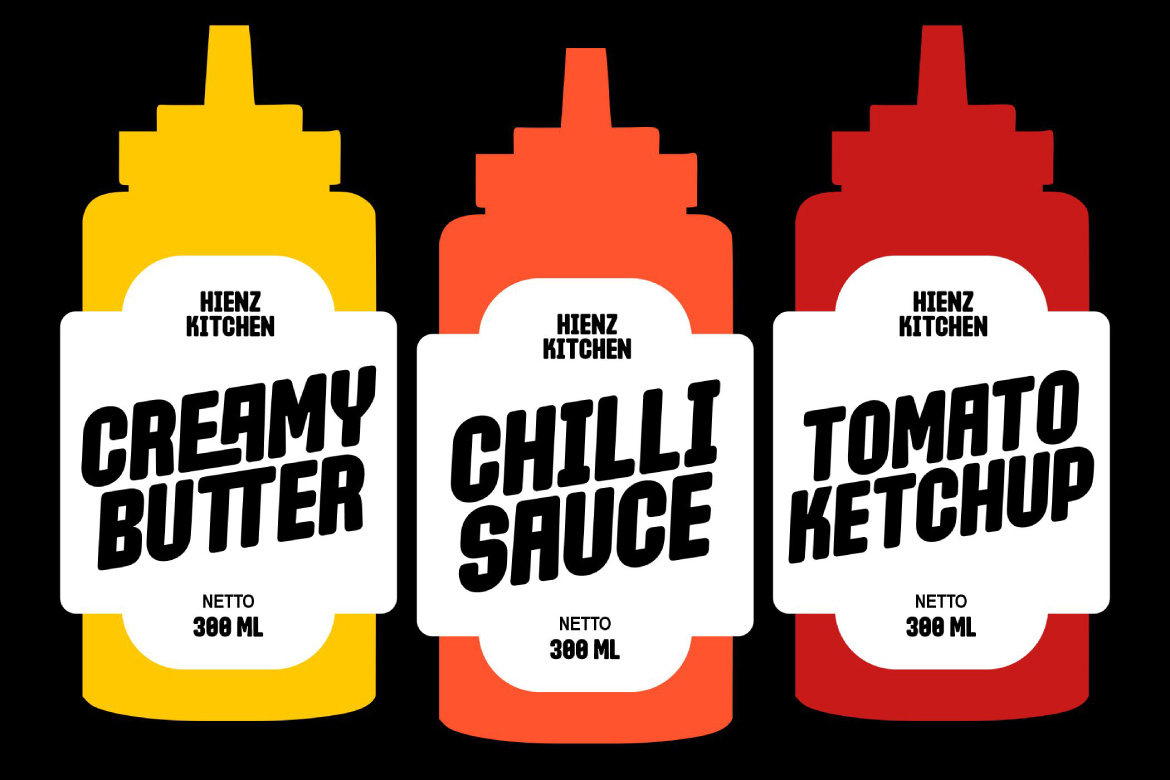
Channel Is Back
Channel Is Back is a bold and playful display typeface with a retro-inspired character. Featuring chunky proportions, rounded forms, and distinctive geometric details, it brings a fun and energetic feel to any design. The Regular style offers a strong and solid appearance, while the Slanted style adds movement and attitude.